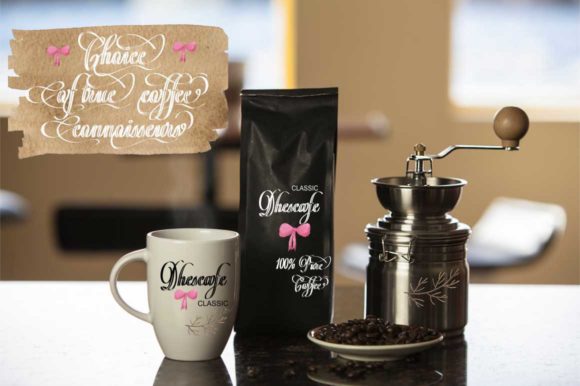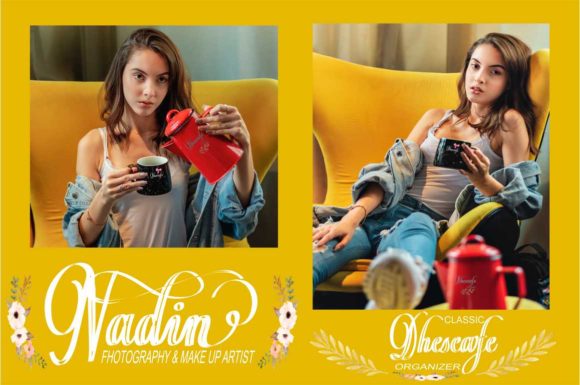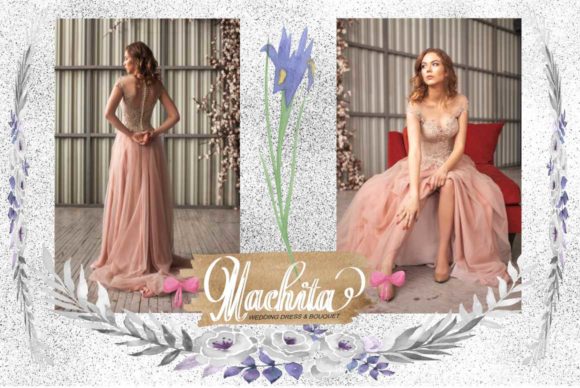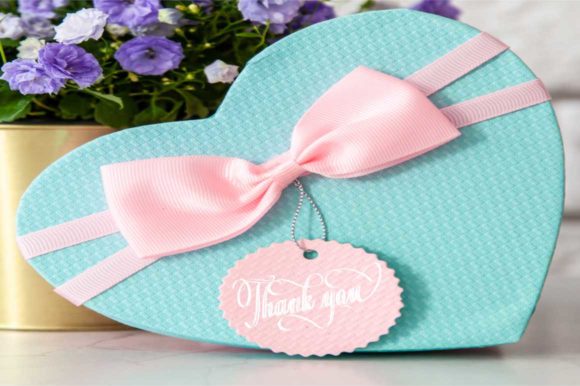
Introduction to Sikatabis Font
Sikatabis feels equally charming and elegant.
This stunning script font is a stylish homage to classic calligraphy It features a varying baseline, smooth lines, gorgeous glyphs and stunning alternates.
Key Features of Sikatabis Font
Why Choose Sikatabis Font?